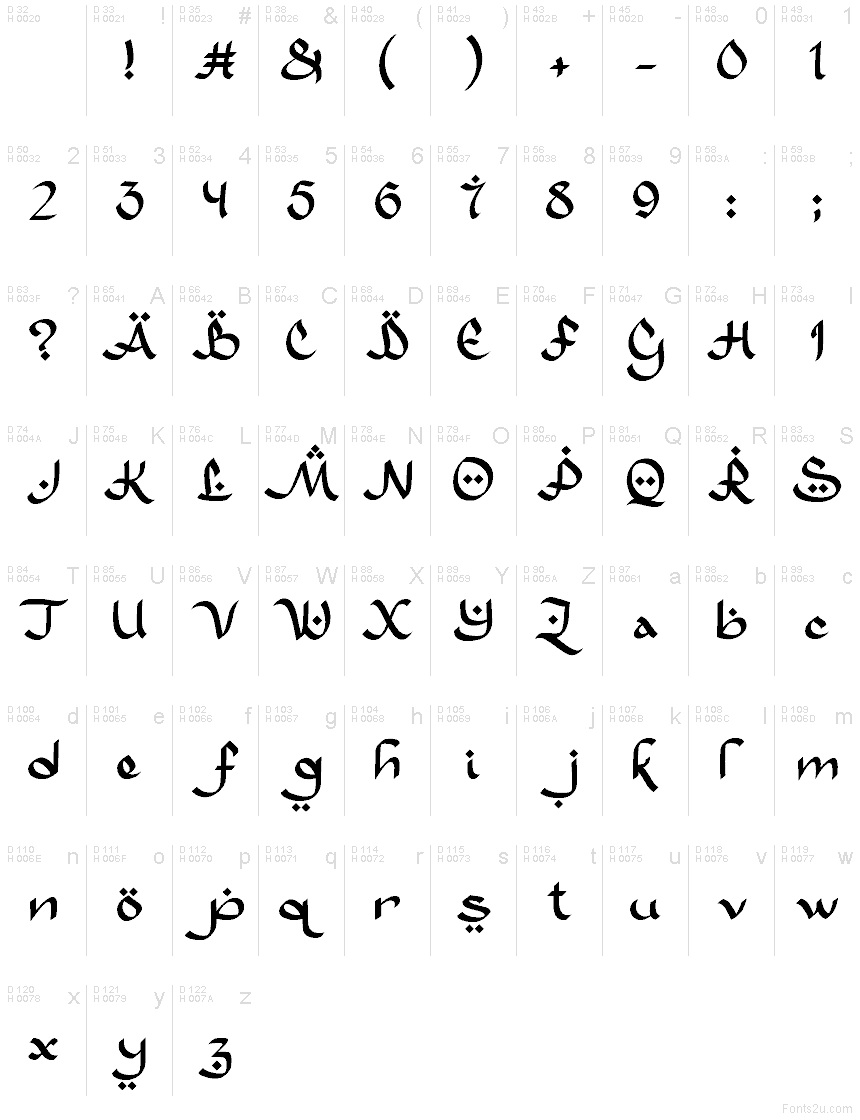
Massyabhan Regular
Massyabhan font by Creatype Studio is a free decorative Arabic script display font. It stands out with inky, calligraphic strokes that taper like a pointed-nib pen, a lively swinging baseline, and diamond‑like dots that echo Arabic diacritics. The rhythm feels ceremonial yet friendly, with teardrop terminals and subtle curls that add warmth without turning fussy.
Using Massyabhan, headlines gain a cultured flourish that shines on Eid and Ramadan campaigns, halal food packaging, boutique logos, travel posters, menu covers, and invitation suites. The spacing keeps words legible at medium sizes, while the contrast holds up in large headlines. Pair this free font with a clean geometric sans for body copy to let its ornate forms breathe.